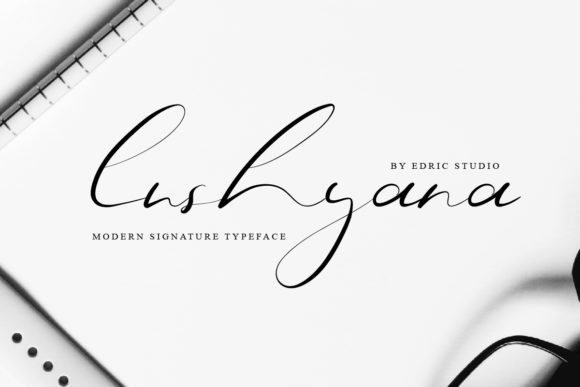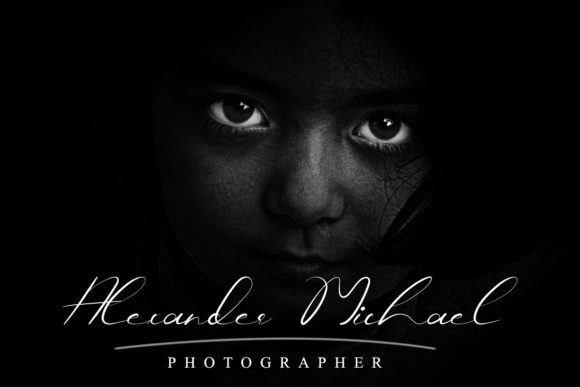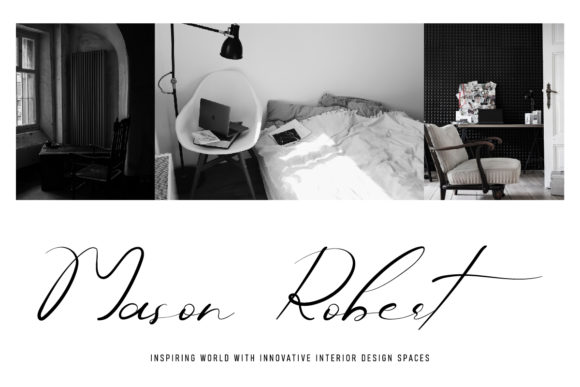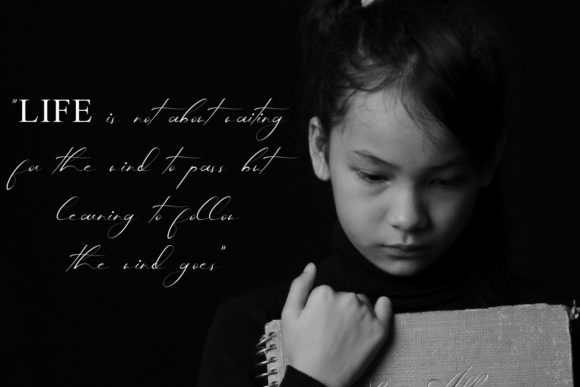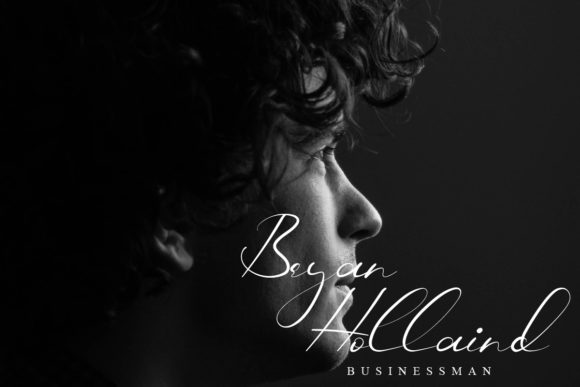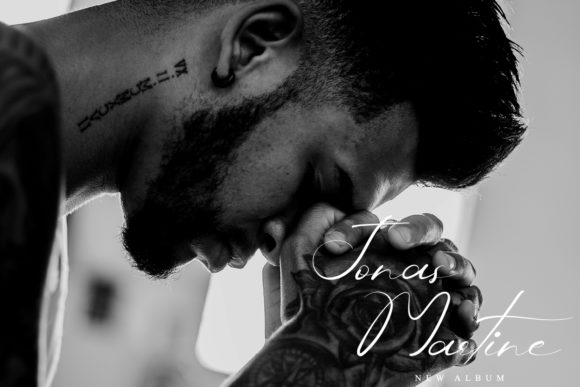
Introduction to Lushyana Font
Lushyana is an exclusive handwritten script font with a signature style.
It looks beautiful on a variety of designs requiring a personalized style, such as wedding invitations, thank you cards, weddings, greeting cards, logos and so on .